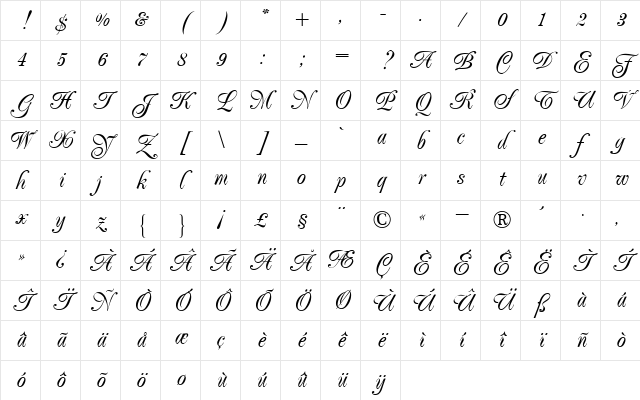
Complete Poppl-Exquisit BQ Regular glyph index. Displaying only characters natively supported by Poppl-Exquisit BQ Regular font.
Poppl-Exquisit BQ is a composed and adaptable typeface that performs quietly and consistently across a wide range of design contexts.
Who designed the Poppl-Exquisit BQ Regular font?